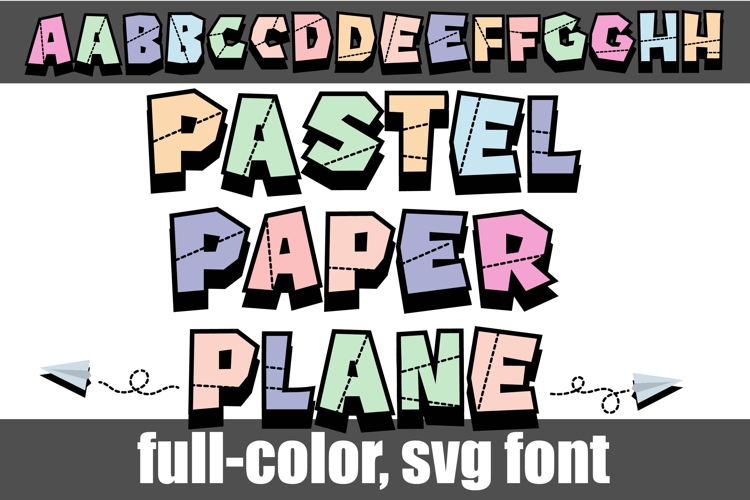
Paper Plane Pastel Color Font
This full-color, sans serif in a pastel color palette looks folded paper. There is an alt case of additional colors of each letter that you can access through your system's character map. Access the paper planes by typing the greater than and less than glyphs.